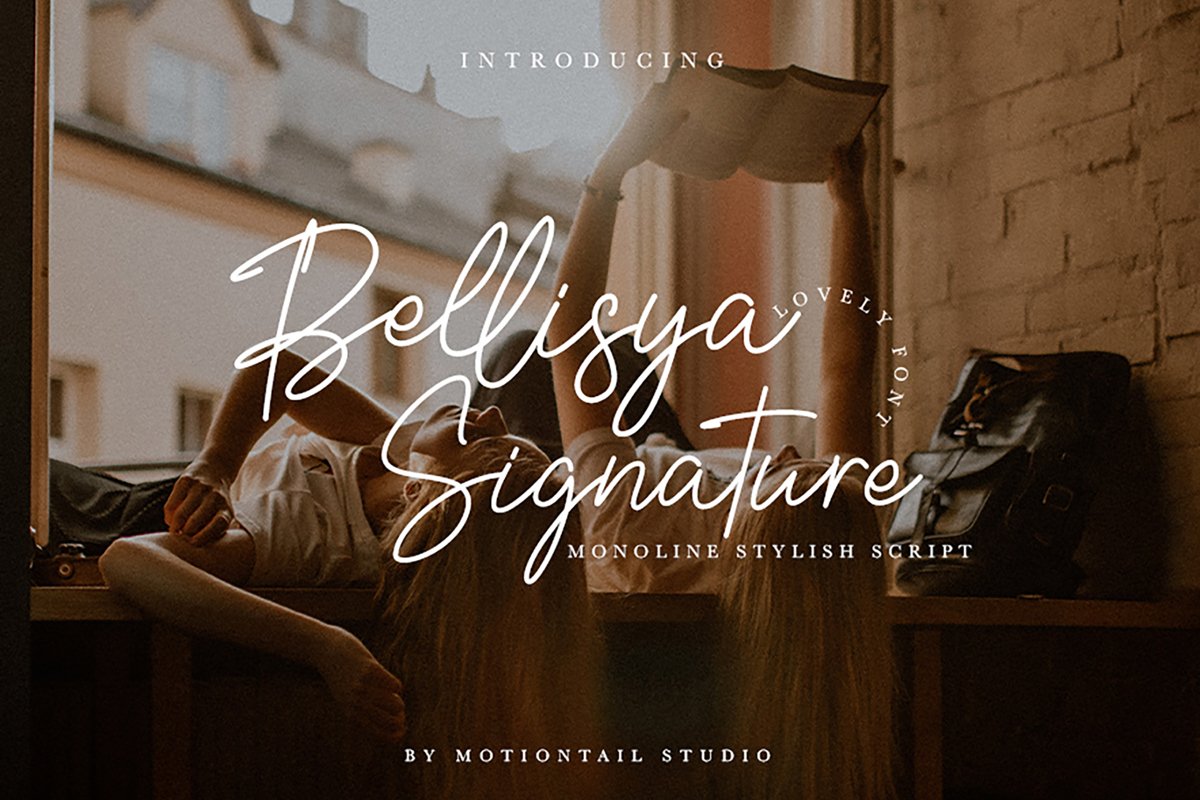
Bellisya Signature
Introducing Bellisya Signature. It is perfect for logo/branding projects, large header text and product packaging.Sign Style Features :
- Alternates